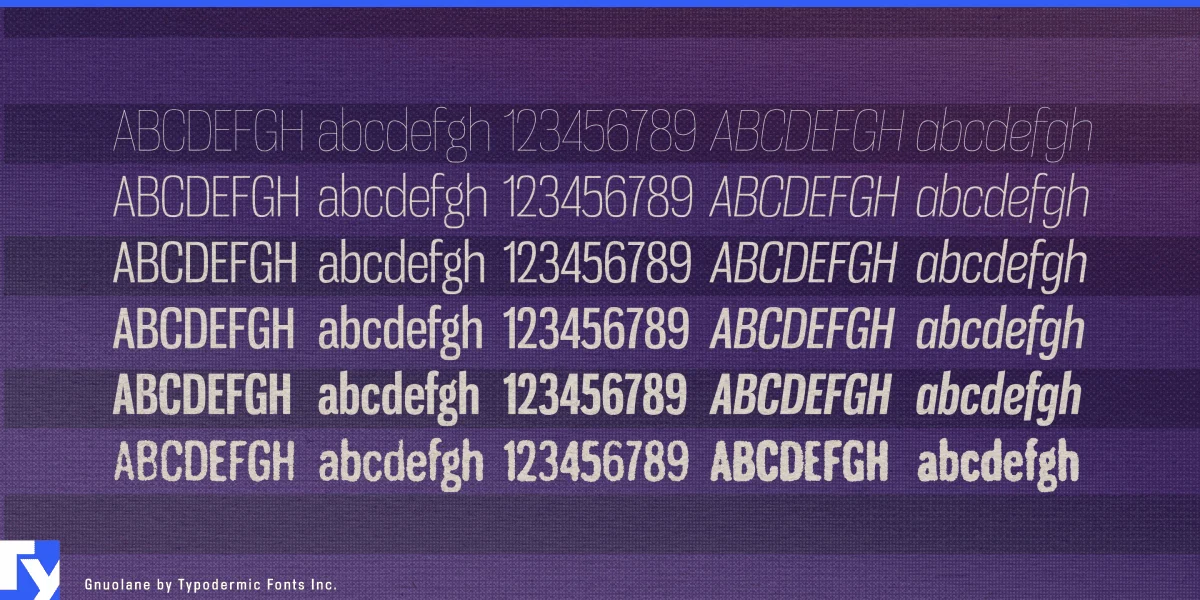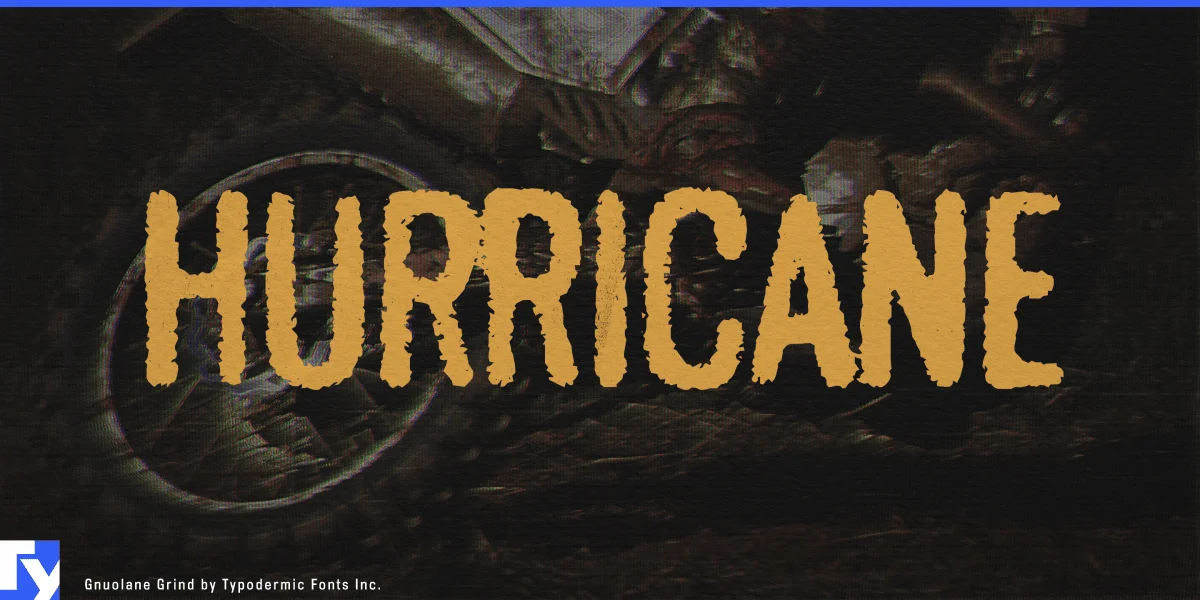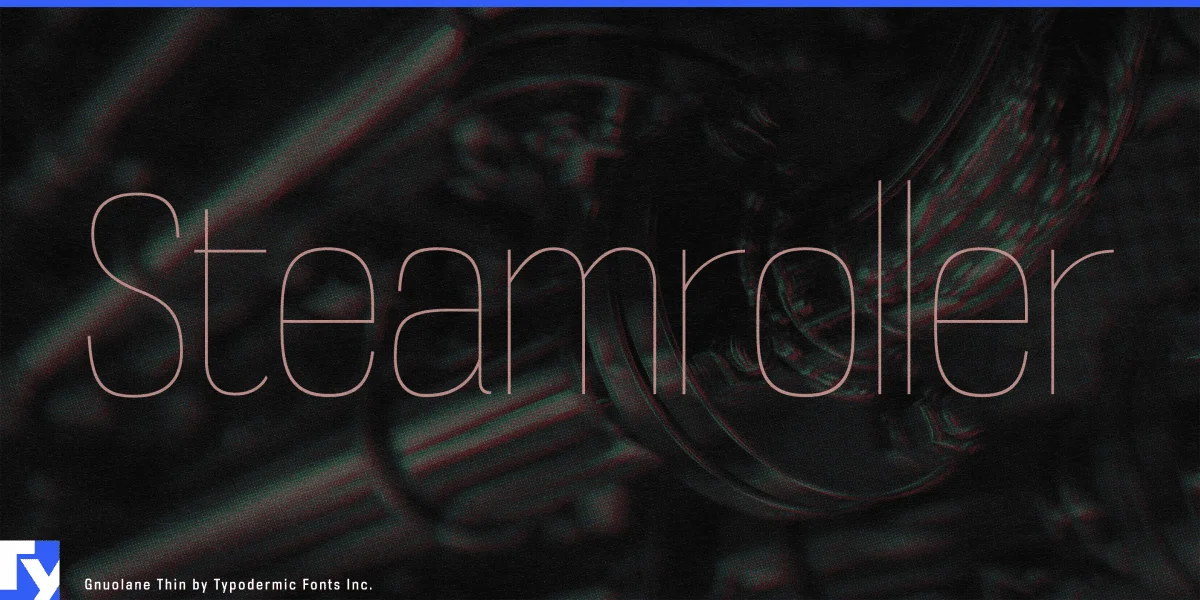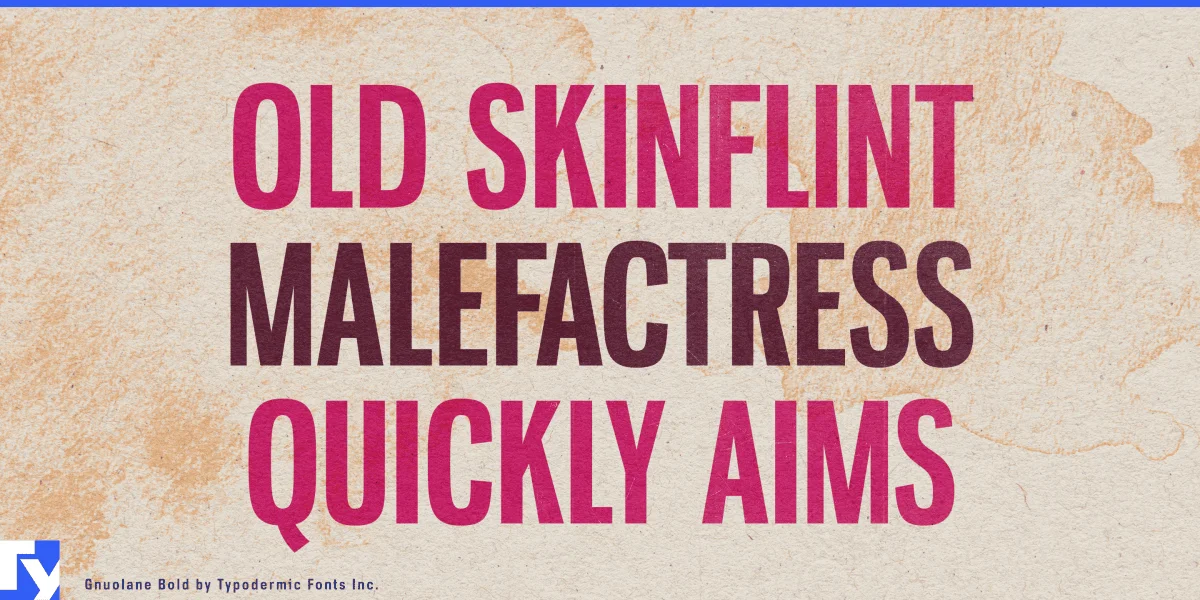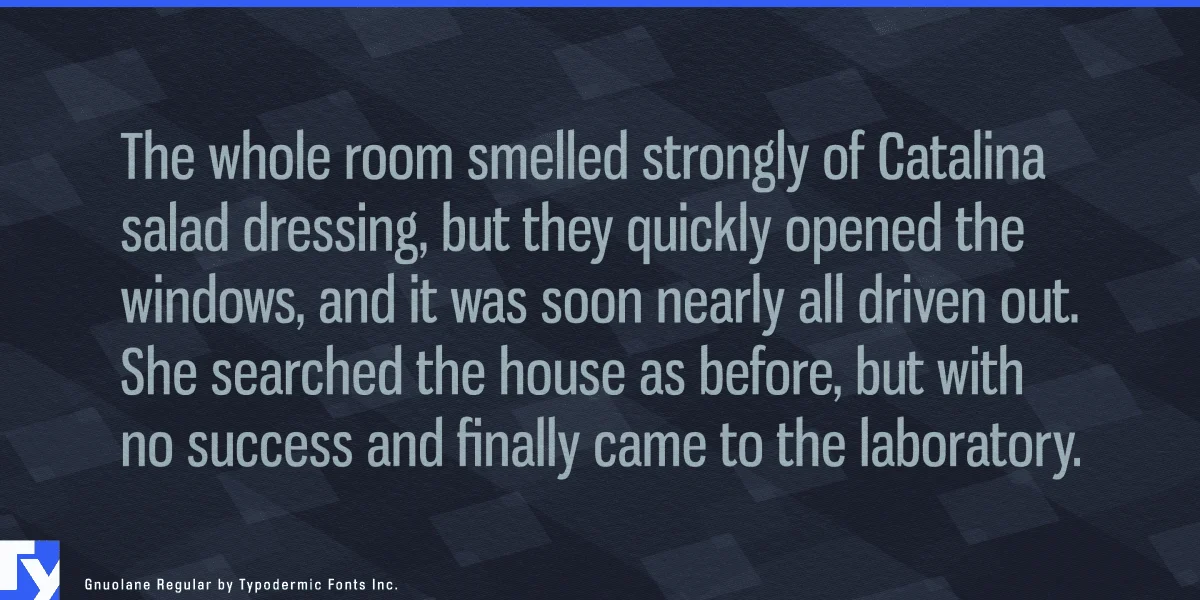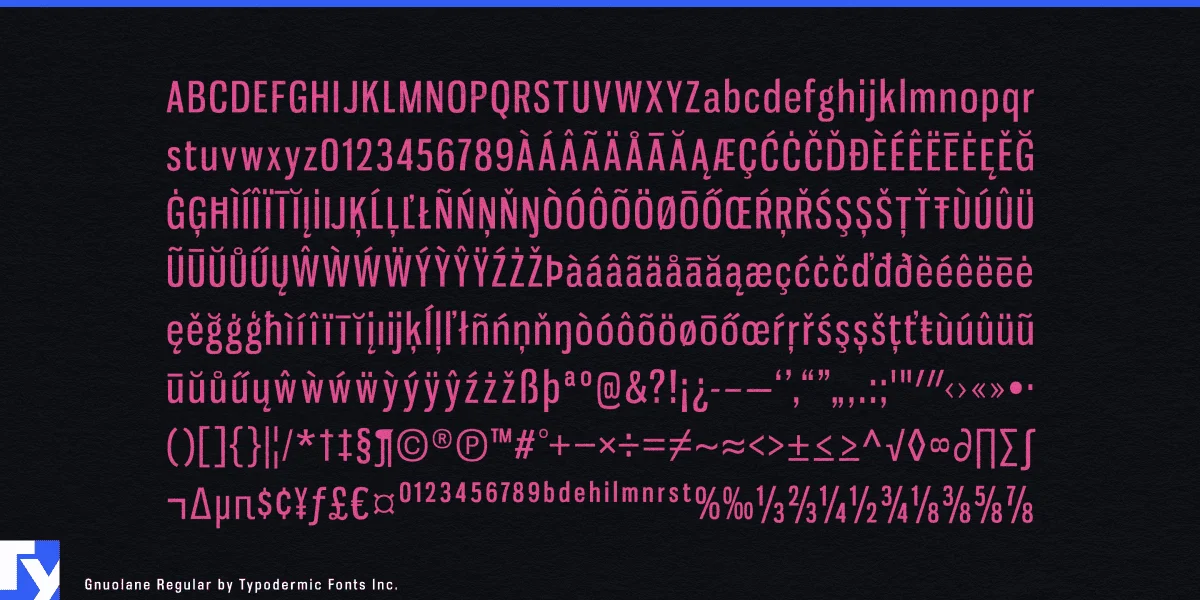
Meet Gnuolane, the typographic equivalent of a well-tailored suit—compact, bold, and exuding quiet confidence. This display typeface marries the timeless appeal of early twentieth-century grotesques with the no-nonsense attitude of the 1960s, resulting in a design that’s both classic and unmistakably modern.
Gnuolane’s subtle flavor comes from carefully crafted details that reveal themselves in use—slight asymmetries, unexpected curves, and precise terminals that give each character its own personality. It’s a typeface that rewards the discerning eye, much like a finely aged whiskey reveals its complexities to the patient connoisseur. Despite its compact stature, Gnuolane stands tall in any design context. Its five weights and accompanying italics offer a range of expressions, from the understated elegance of the lighter weights to the commanding presence of the bolder styles. This versatility makes Gnuolane equally at home in punchy headlines, sophisticated branding, or impactful signage.
For those seeking to push boundaries, Gnuolane Jump and Gnuolane Stencil offer intriguing variations on the theme. These siblings share Gnuolane’s DNA but express it in ways that demand attention—perfect for designs that need an extra edge without sacrificing refinement. Gnuolane’s linguistic prowess is as impressive as its visual impact. It speaks fluently in a vast array of Latin-based European languages, from the lyrical tones of Portuguese to the crisp consonants of Polish. This typeface is a polyglot’s dream, capable of conveying your message with precision and style across borders and cultures.
In a world of typographic noise, Gnuolane is your secret weapon—a typeface that communicates with clarity and character. It’s a statement of intent, a declaration that you value substance as much as style. Choose Gnuolane when you need typography that works as hard as you do, standing strong and true in the face of fleeting trends.